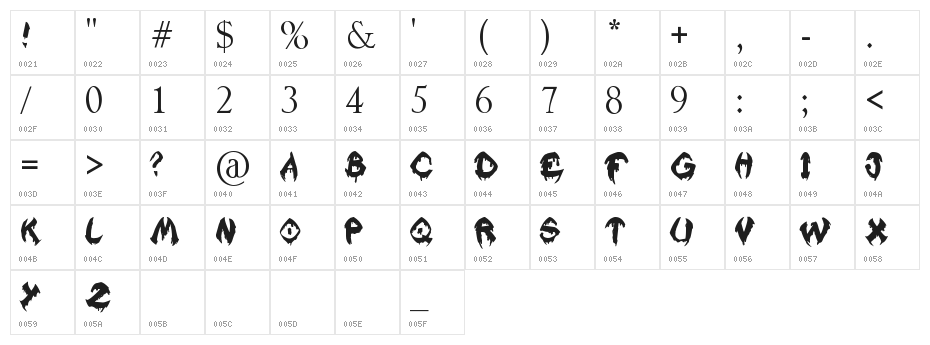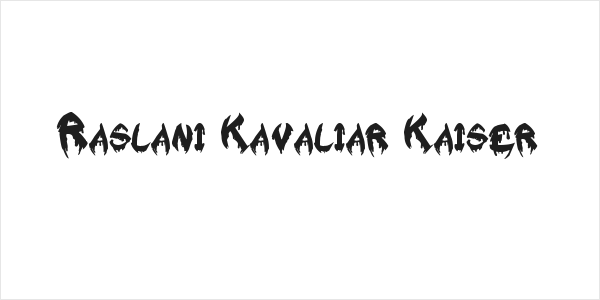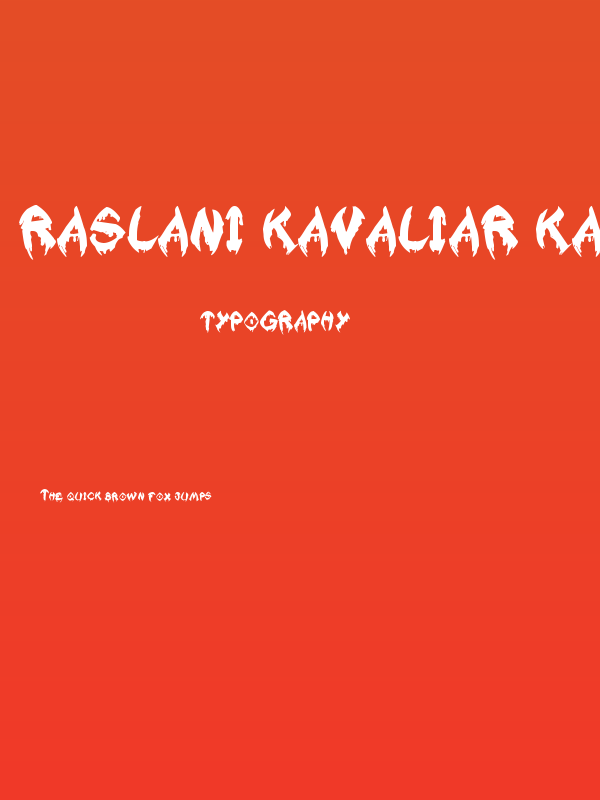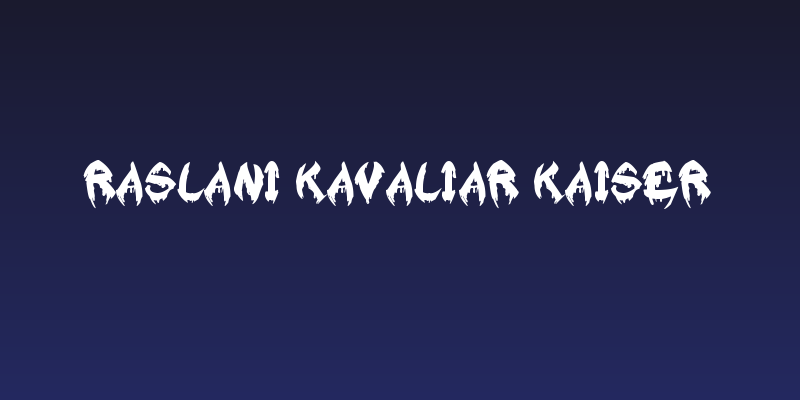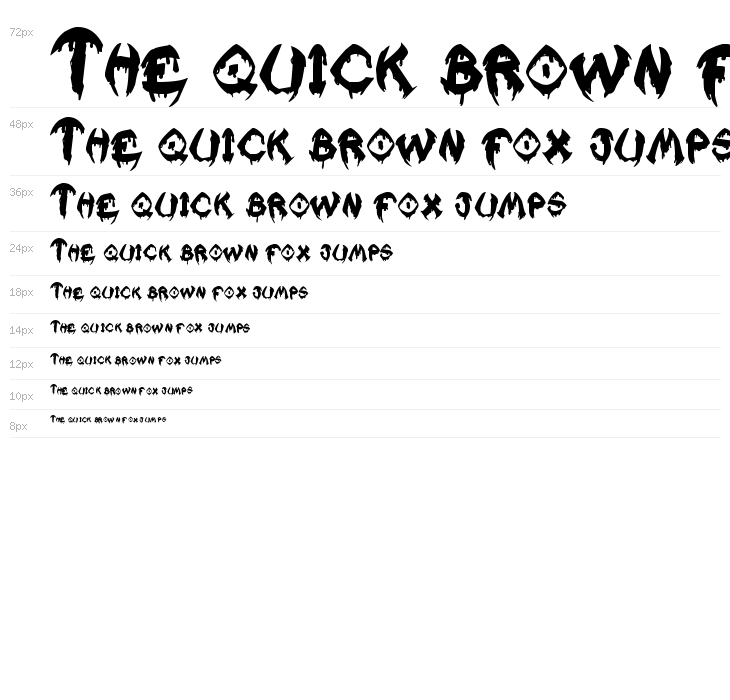
Raslani Kavaliar Kaiser Font
Raslani Kavaliar Kaiser Description
This font features a bold, dramatic style with sharp, jagged edges that give it a distinctly gothic and eerie appearance. The uppercase letters are particularly striking, with exaggerated serifs and pointed tips that resemble dripping or melting forms, adding to its horror-themed aesthetic. The lowercase letters maintain this theme, though they are slightly more subdued. The numerals are more traditional in style, offering a stark contrast to the letters. Special characters are consistent with the overall theme, enhancing the font's decorative and thematic appeal. This font is ideal for projects that require a bold statement or a spooky, mysterious vibe.
| Overall Style | Gothic, Horror, Decorative |
| Use Case | Headlines, Posters, Logos |
| Proposed Projects | Ideal for Halloween-themed designs, horror movie posters, spooky event invitations, and decorative signage. |